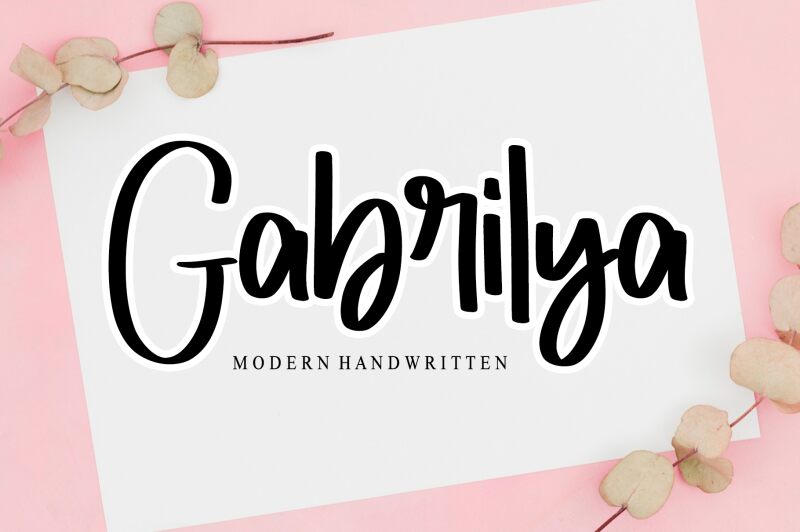
Gabrilya font is a free handwritten font by Letterafa Studio designed to add a casual aesthetic touch to your next project. This modern script has the most expressive appearance and lively style that speaks for most of its character. It looks both professional and approachable, making it suitable for textual parts as small as letters on paper (ink projects) or as big as stunning article titles, for example.
Getting it out of the text requires little imagination still, so be free to enjoy using this font on shop signs, wedding invitations, product labels, stationery kits, blogs and websites headers. It works excellent with business cards too; it’s right when you want an original element added to apps and interfaces from all sorts and games cover texts users see before purchasing something or downloading.